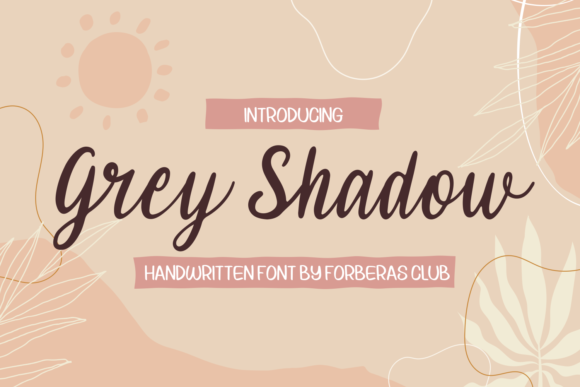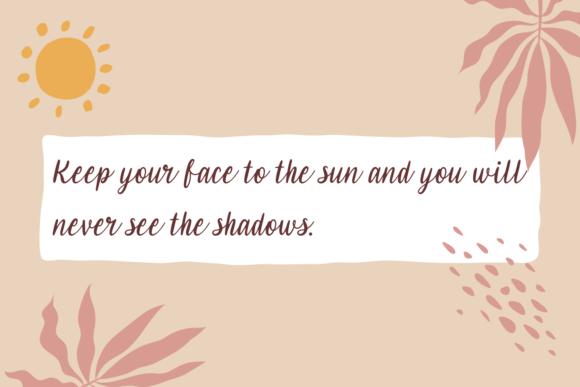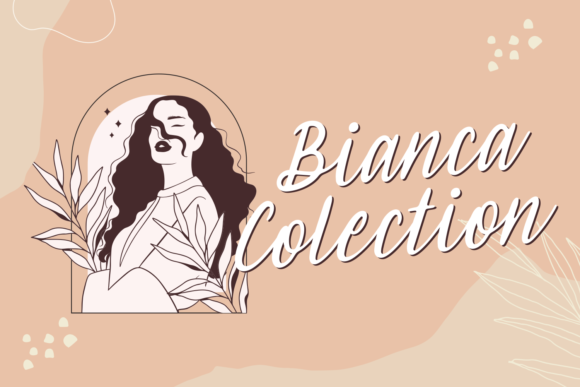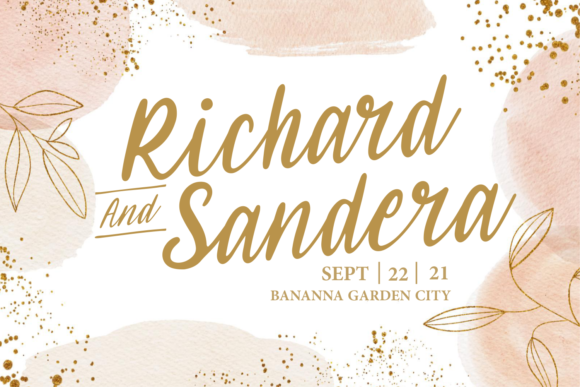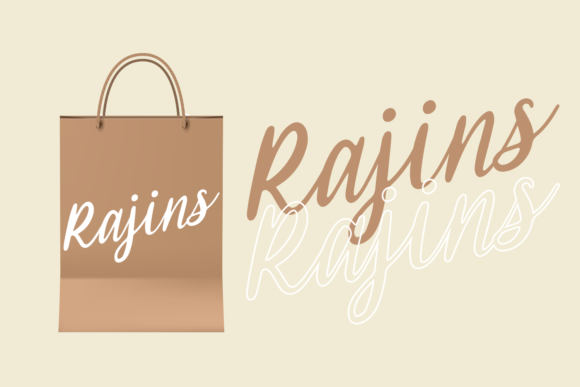
About Grey Shadow Font
Grey Shadow is a well-balanced handwritten font, masterfully designed to become a true favorite. It maintains its classy calligraphic influences while feeling contemporary and fresh. Fall in love with it and bring your projects to the highest levels!